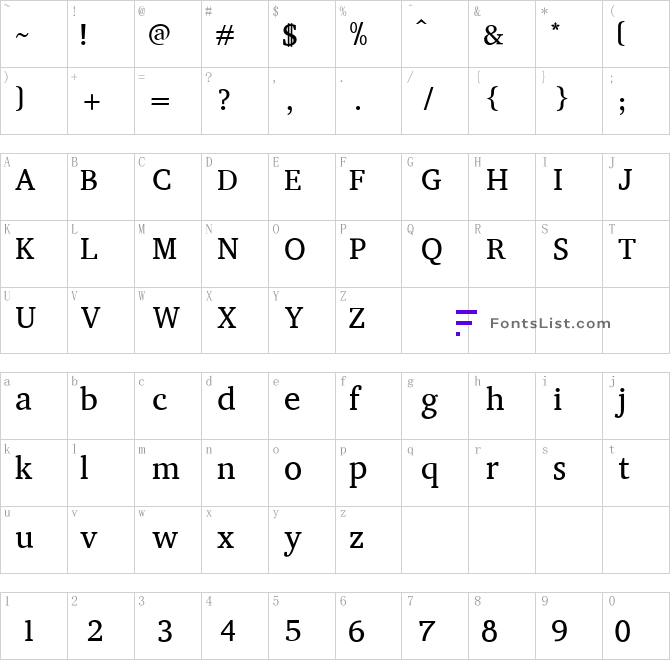
- Font Name:Auctoritas
Auctoritas-Regular.ttf is a very beautiful artistic font, Auctoritas-Regular.ttf is widely used in the design and printing of various books and pictures,Auctoritas-Regular.ttf has a strong visual impact,Auctoritas-Regular.ttf is a commonly used font in newspapers, magazines and books, and is used in posters, e-commerce Poster design, store design, logo design, font design and other fields.Auctoritas-Regular.